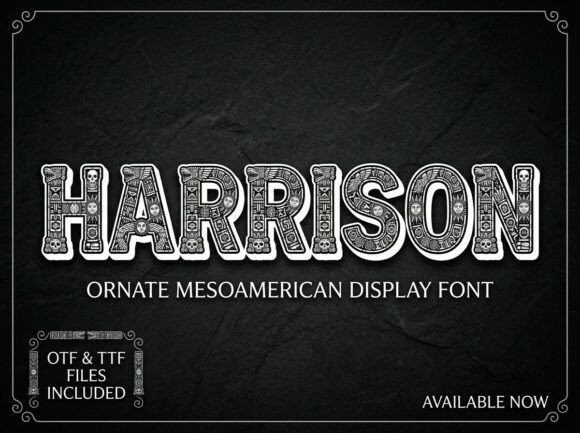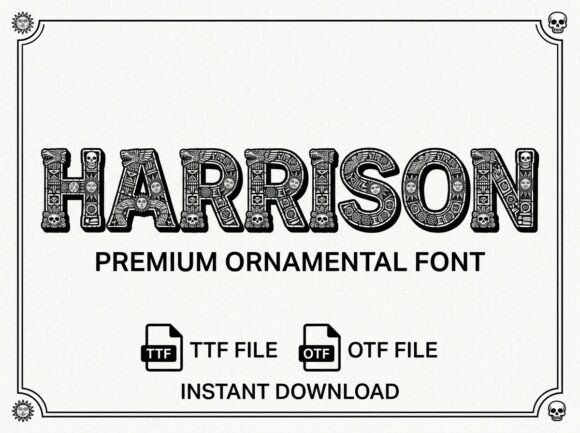
Introducing Harrison Font: A Stunning Decorative Display Font
Are you tired of using the same old fonts for your designs? Look no further than Harrison Font, a unique and artistic display font that’s sure to turn heads. This font is designed to be the center of attention, featuring bold and eye-catching elements that will elevate your designs to the next level.
A Font with a Strong Visual Personality
Harrison Font is a decorative display font that’s perfect for creators who want to break away from the ordinary. Its strong visual personality makes it ideal for bold headlines, artistic logos, and creative packaging. Whether you’re designing a brand identity, creating a poster, or crafting a social media graphic, Harrison Font is the perfect choice.
Before you purchase, it’s essential to note that Harrison Font is an ALL-CAPS (Uppercase Only) display typeface. This means it does not include lowercase letters. It’s specifically designed for high-impact headlines, logos, and decorative initials where every letter is a work of art.
Harrison Font is perfect for designers and crafters who want to add a touch of elegance and sophistication to their work. Whether you’re creating:
- Logos: Use Harrison Font to create a bold and eye-catching logo that will make your brand stand out.
- Headlines: Add a touch of drama and flair to your headlines with this stunning display font.
- Social Media Graphics: Use Harrison Font to create eye-catching social media graphics that will grab attention.
- Packaging: Add a touch of luxury and sophistication to your packaging with this beautiful font.
Why Choose Harrison Font?
There are many reasons why Harrison Font stands out from the crowd:
- Unique Artistic Elements: This font features unique artistic elements that will add a touch of personality to your designs.
- Professional and Polished Finish: Despite its bold and eye-catching design, Harrison Font maintains a professional and polished finish.
- Versatile: Use Harrison Font for a wide range of design projects, from logos and headlines to packaging and social media graphics.
If you’re looking for a font that will help you break away from the ordinary and add a touch of elegance and sophistication to your designs, look no further than Harrison Font. With its unique artistic elements, strong visual personality, and professional finish, this stunning decorative display font is perfect for designers and crafters who want to take their work to the next level.